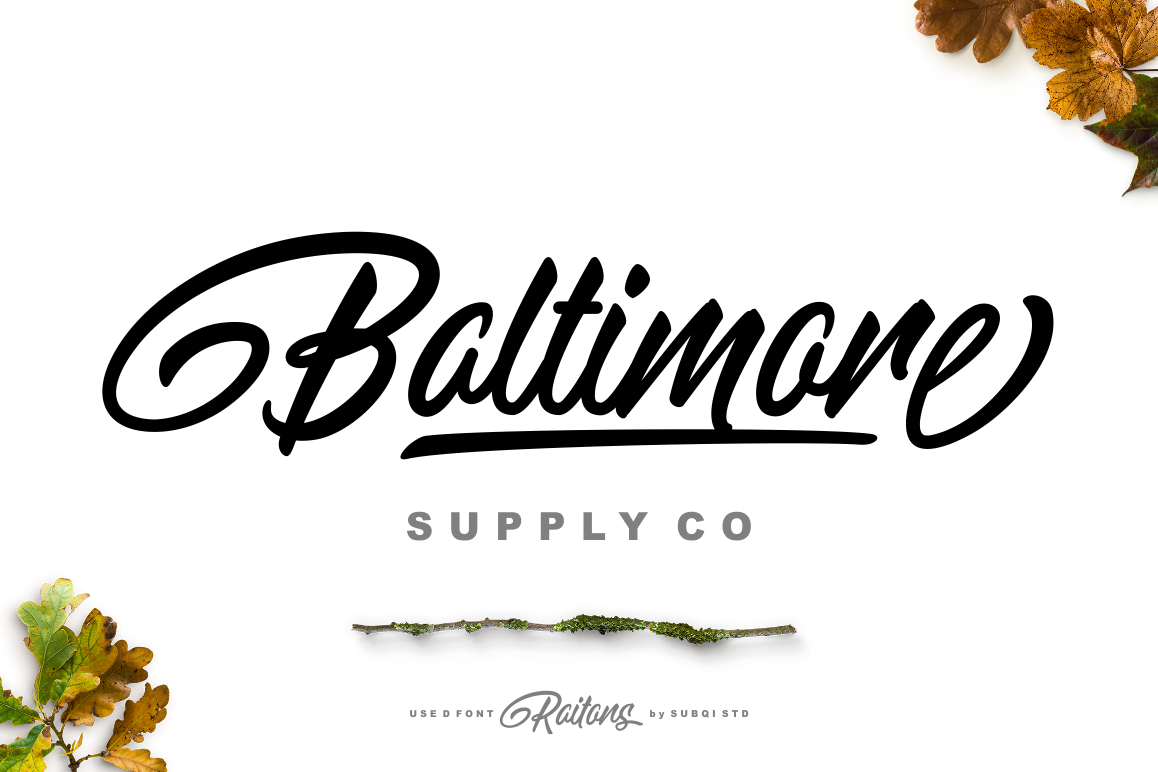
Baltimore
It's been awhile since my last font. So here is it.. my brand new font, Baltimore. A display script font, perfect for many display purposes. Works well on both modern and vintage style. You can check the preview samples for trigger some ideas maybe.WHATS INCLUDED?